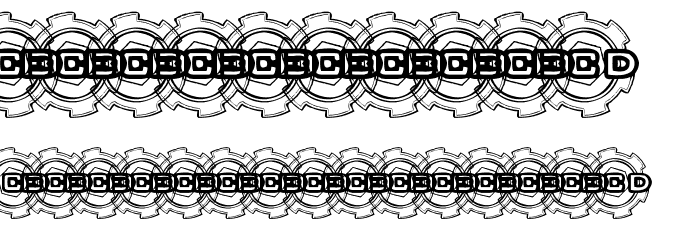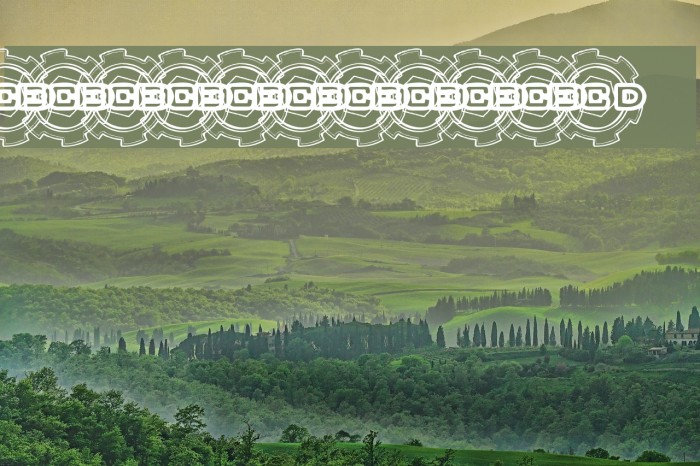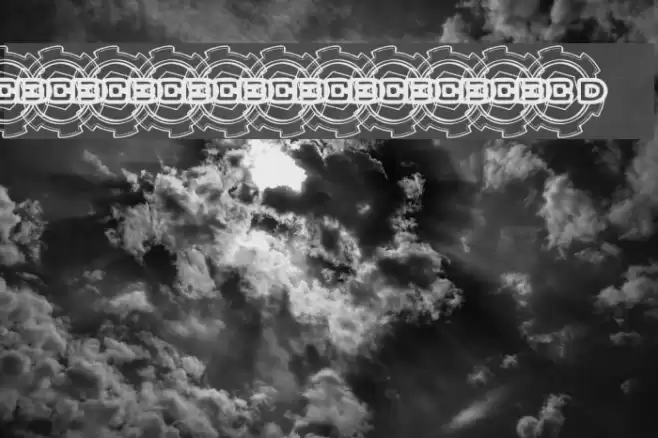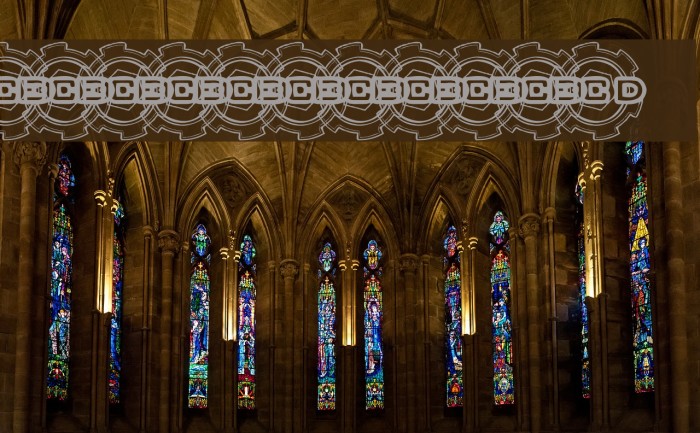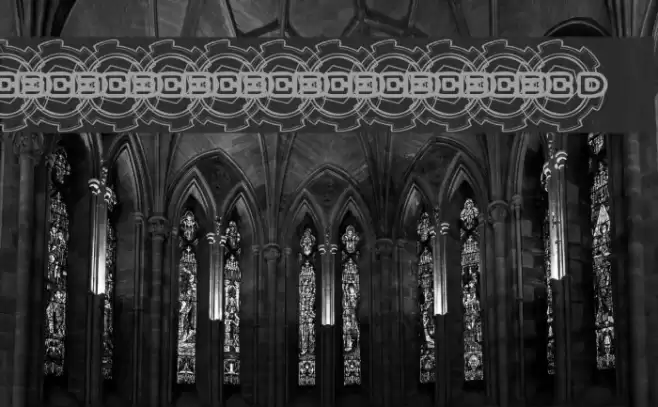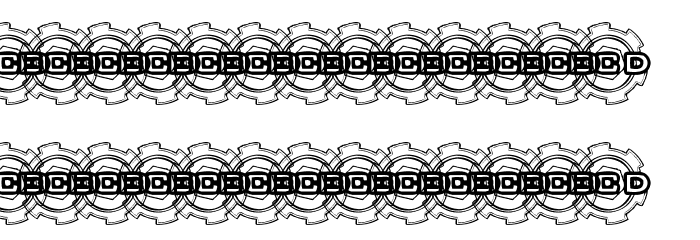
BOLT CUTTER Font
BOLT CUTTER Description
This font features a bold, industrial design with a mechanical aesthetic. Each character is enclosed within a gear-like shape, giving it a unique and robust appearance. The letters are uppercase and have a uniform, blocky structure, emphasizing strength and durability. The intricate detailing around each character adds depth and a three-dimensional effect, making it stand out. This font is ideal for projects that require a strong, mechanical theme, such as engineering or automotive branding. Its distinctive style ensures high visibility and impact, making it suitable for headlines or logos where a bold statement is needed.
| Overall Style | Industrial, Mechanical |
| Proposed Projects | Ideal for engineering, automotive branding, industrial-themed designs, and impactful headlines. |